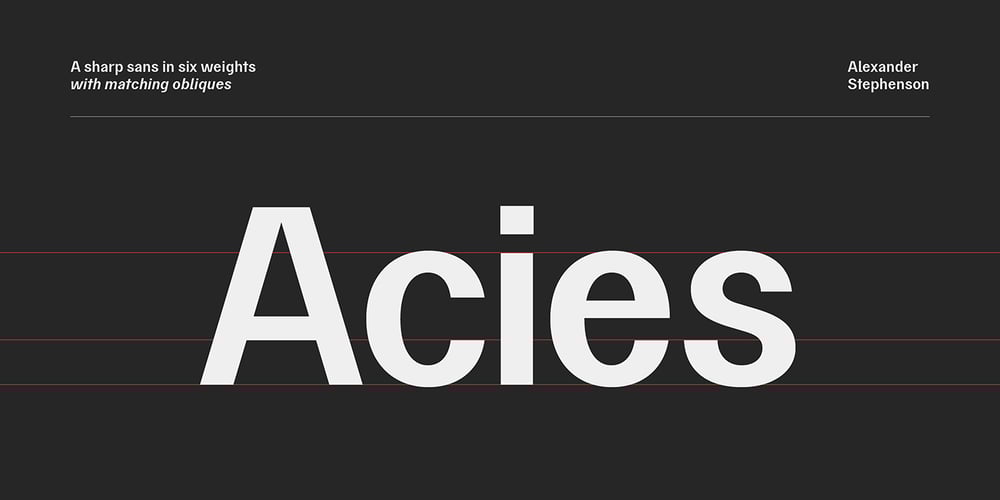
Acies Font Family was designed by Alexander Stephenson and published by Alexander Stephenson. Acies contains 11 styles and family package options. Acies is a sharp sans with accented stroke width contrast and slightly condensed proportions. Its shapes are reduced to the bare minimum, conveying simplicity and sophistication. It has steep joins, aligning horizontal stroke endings and vertically ending ascenders and descenders, freely mixing typographic norms to create something refreshing and new. It is designed to function in a wide variety of environments, ranging from screen to print. Acies is available in 6 weights with matching obliques, that have the same pitch as their upright counterparts. With 690 Glyphs per font, it supports 100+ languages and offers a wide range of OpenType features like stylistic alternates, petite caps, old style figures, ligatures or case sensitive forms.